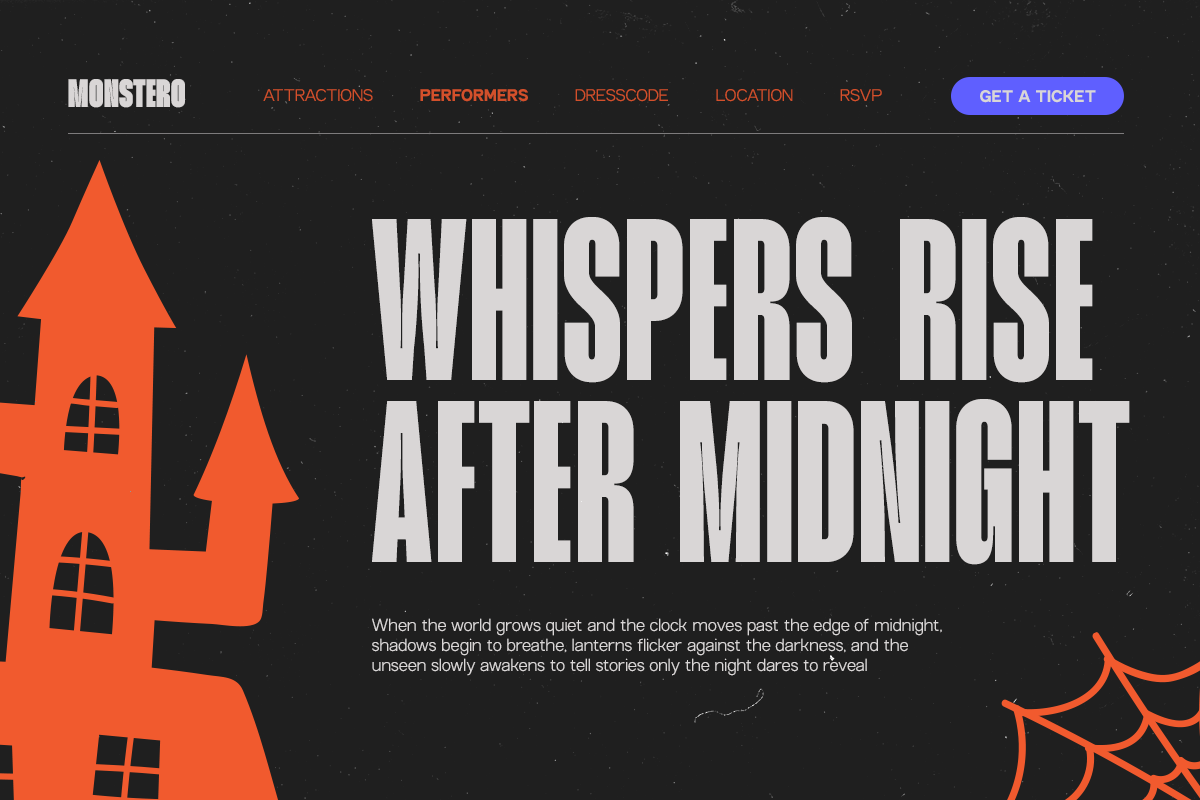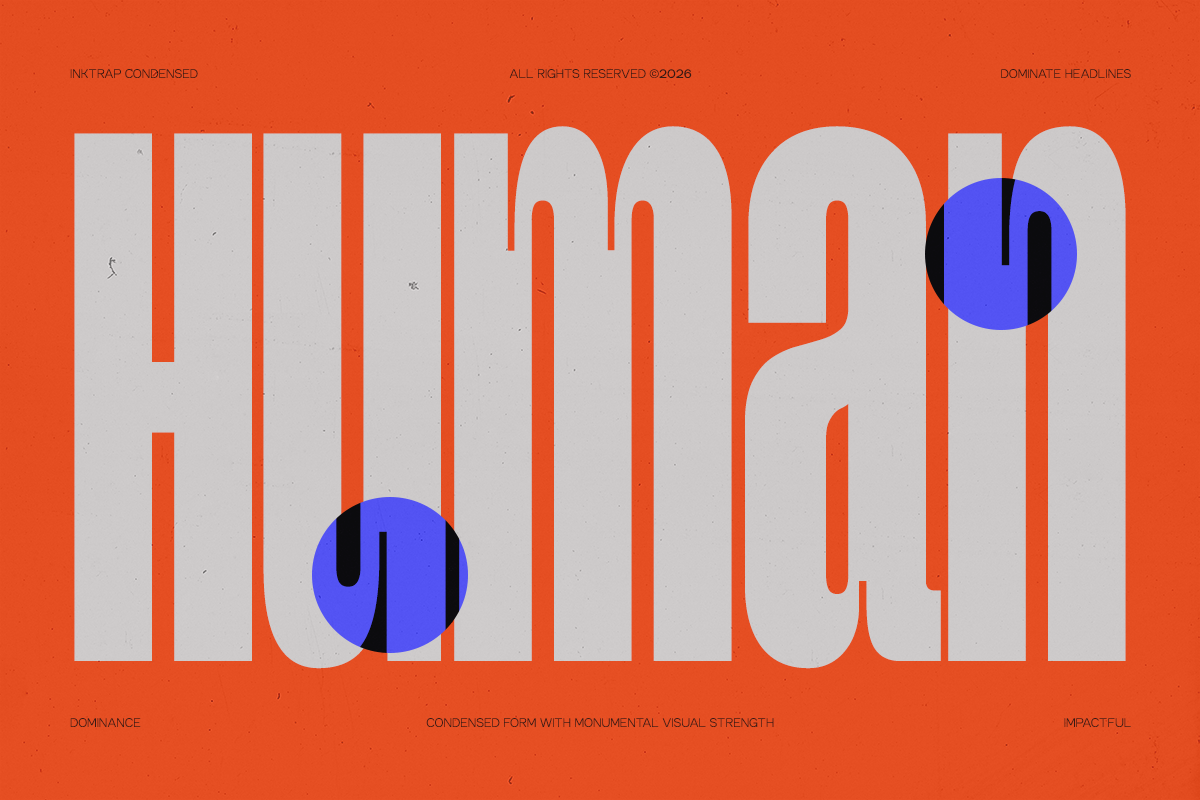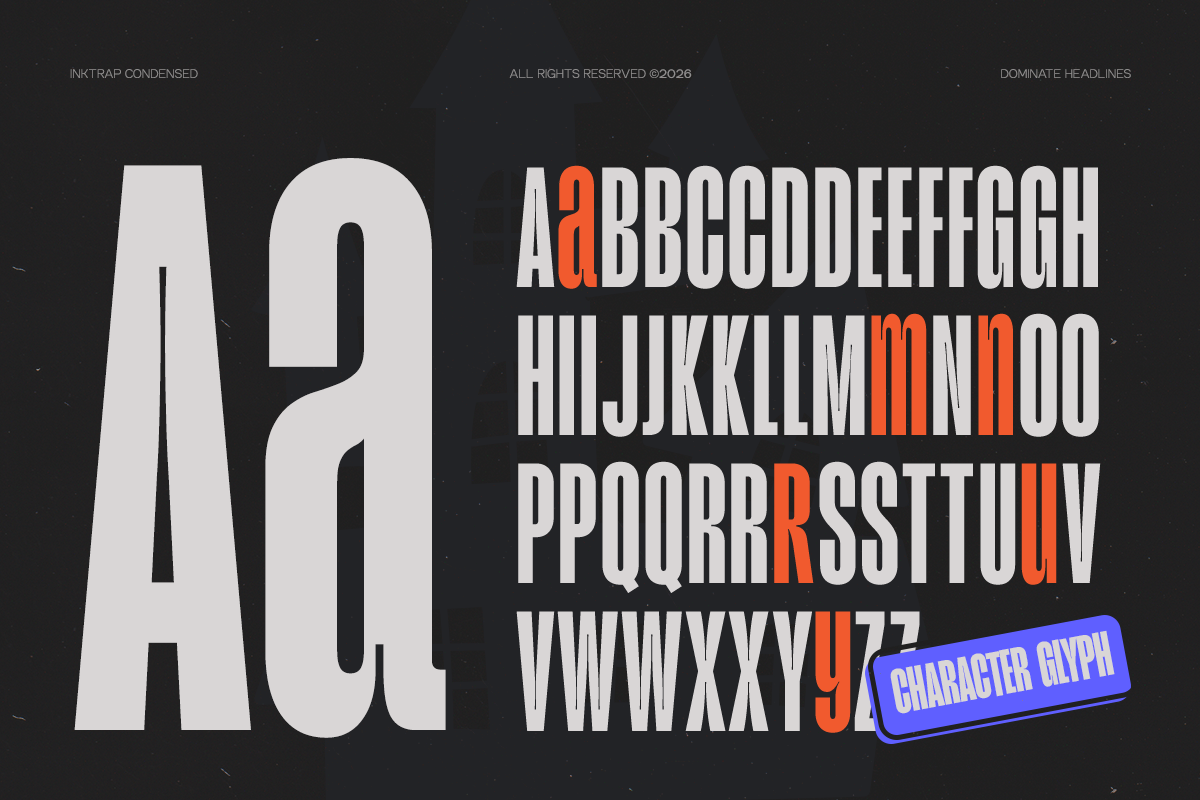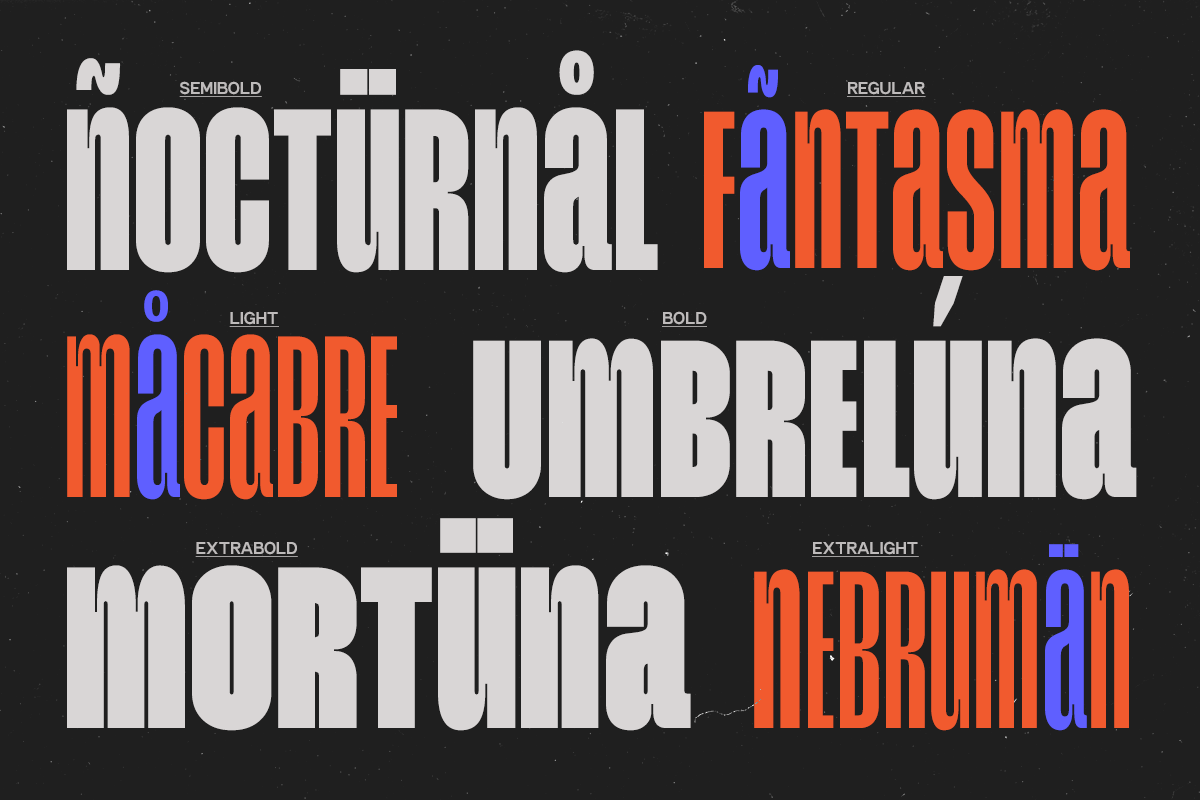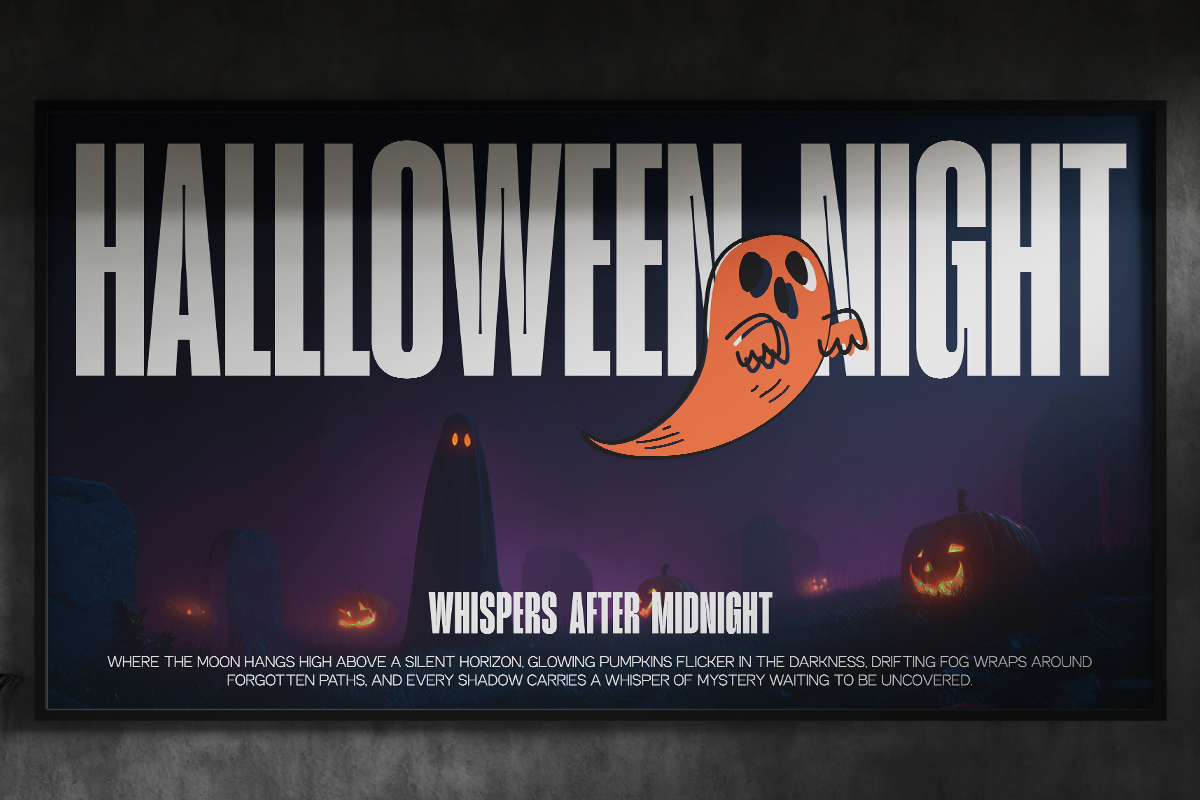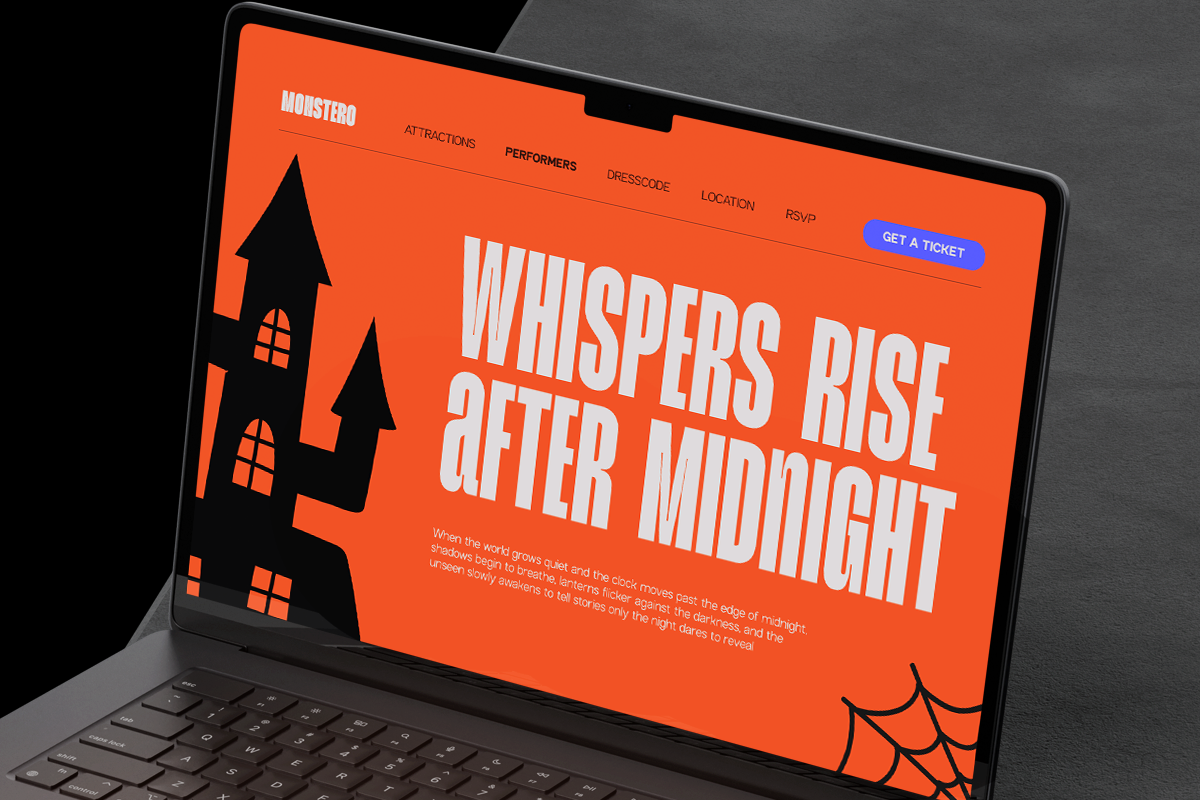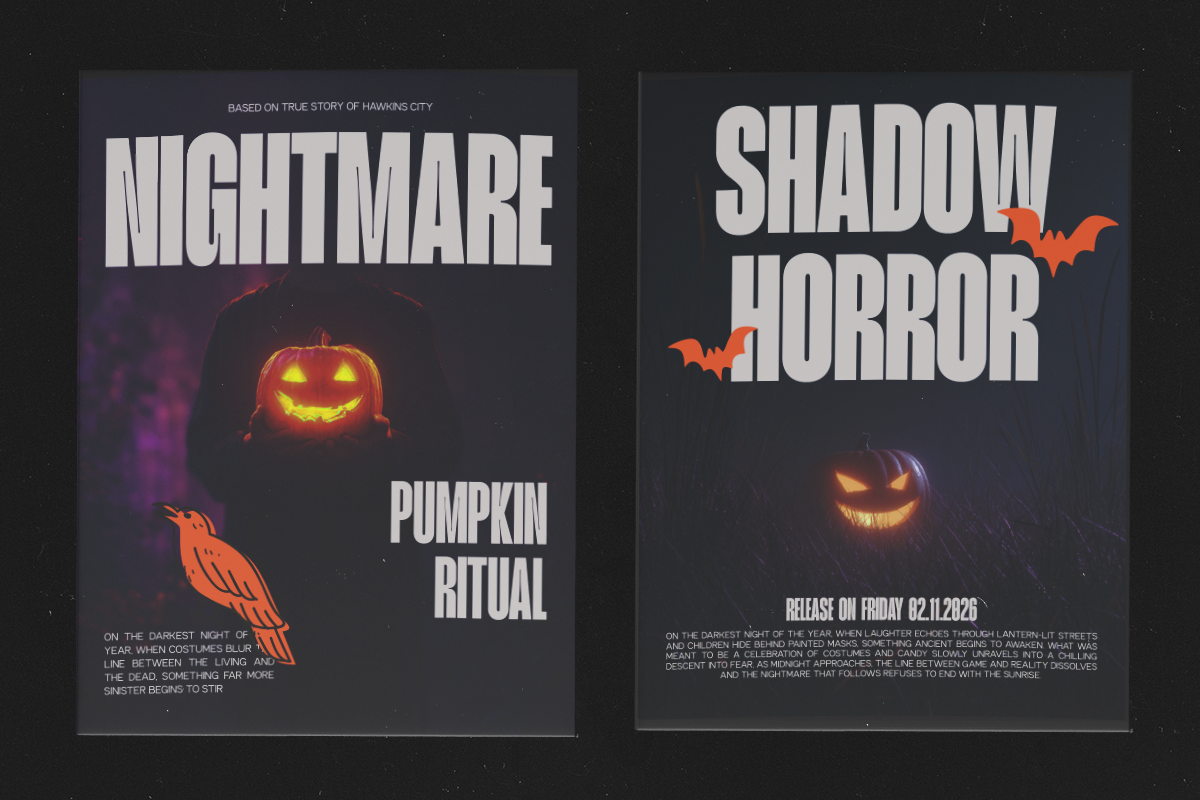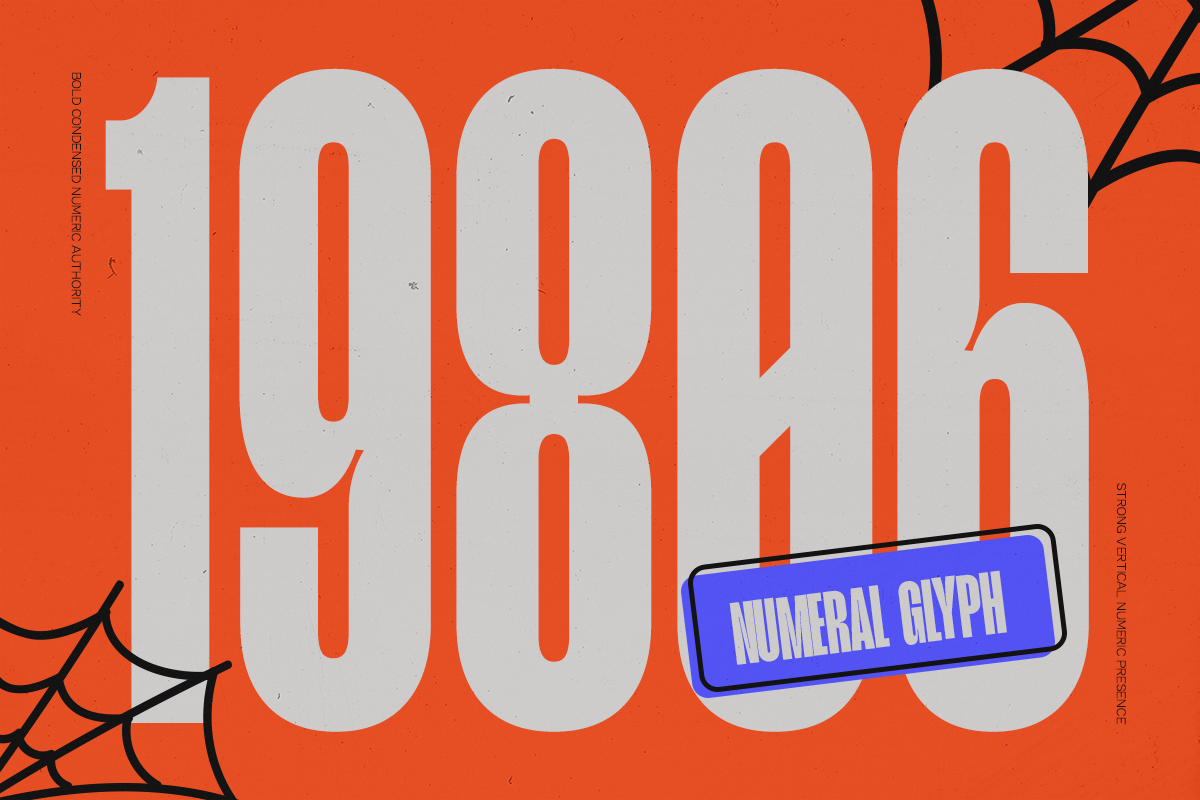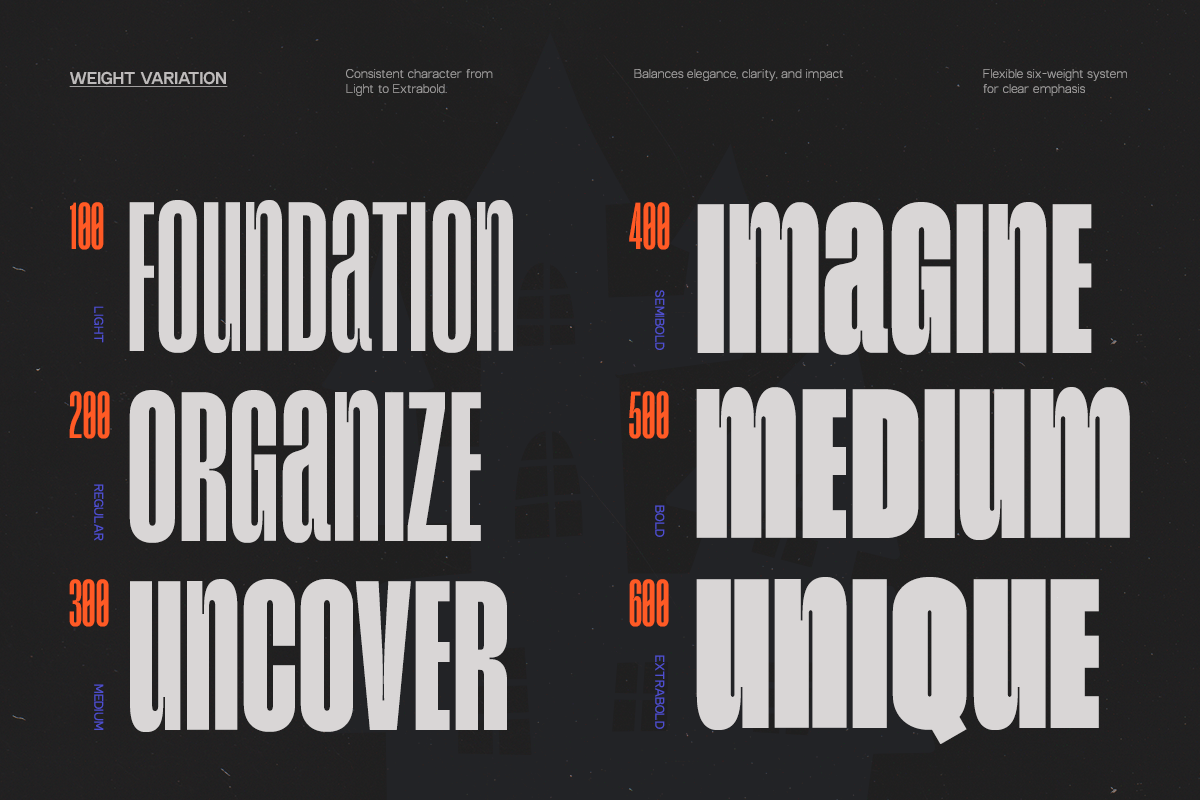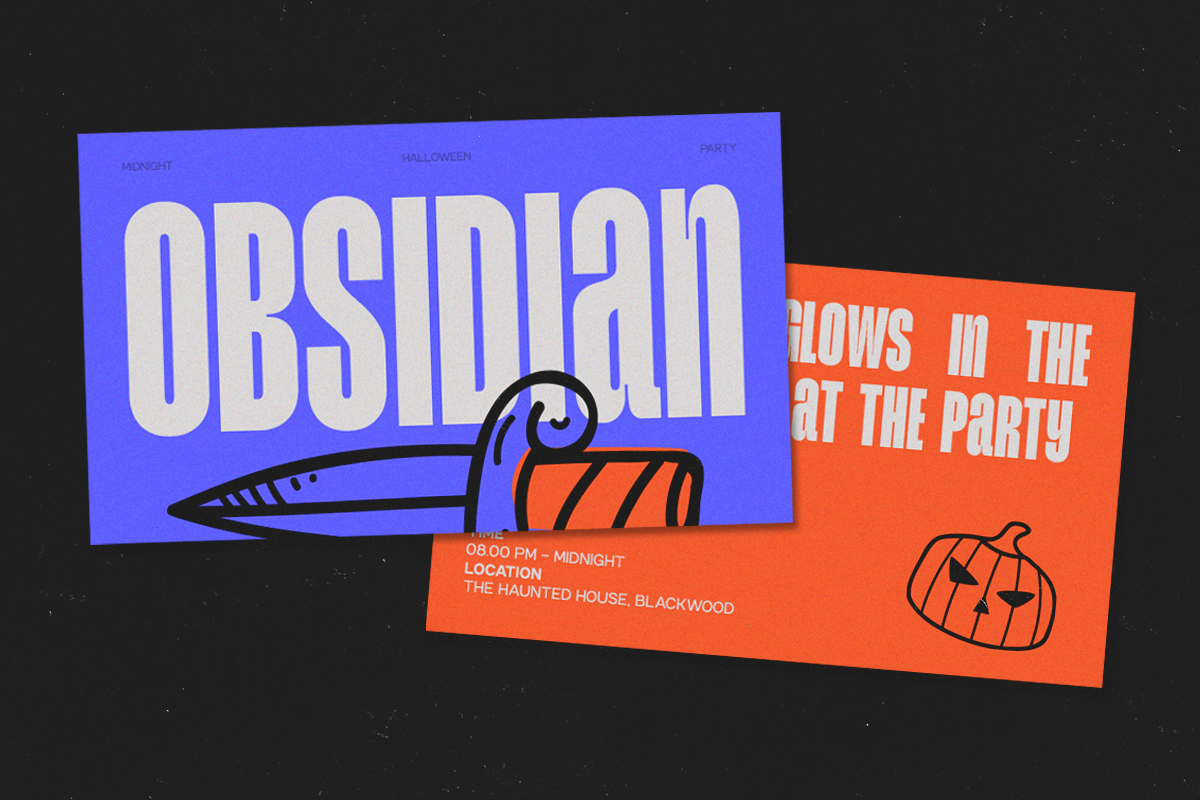
GC Magnu - Inktrap Condensed
GC Magnu – Inktrap Condensed is a modern sans serif typeface engineered with precision, functionality, and bold character. Featuring distinctive inktrap details and a condensed structure, it is designed to maximize readability while maintaining a strong and contemporary visual presence.
Built for high-performance typography, GC Magnu excels in tight spaces without sacrificing clarity. Its sharp geometry and carefully crafted inktraps enhance legibility across various sizes, making it ideal for branding, editorial layouts, user interfaces, packaging, and data-driven design systems.
Combining technical efficiency with modern aesthetics, GC Magnu delivers a confident and structured tone that works seamlessly across both digital and print media. Whether used for compact headlines, impactful titles, or dense text compositions, it provides clarity, rhythm, and visual strength.
- Inktrap Condensed Construction
- Multilingual Support (170+ Languages)